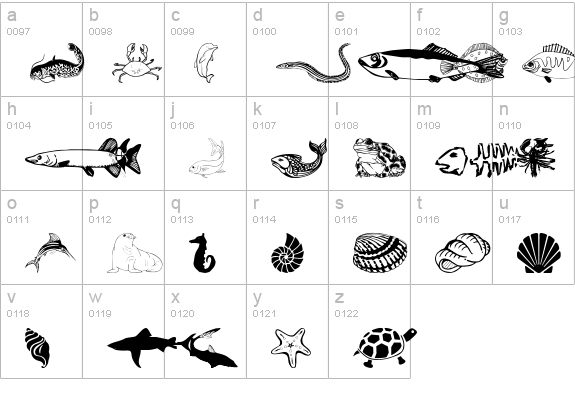
wmaquatic1 Font Details
The wmaquatic1 font is a stunning display typeface that exudes elegance and sophistication. With its sleek lines and unique design, this font is perfect for adding a touch of modernity to any project. Whether you're working on a branding campaign, website design, or any other creative endeavor, wmaquatic1 is sure to make a lasting impression. The best part? wmaquatic1 is completely free to download at FontsMarket.com. So you can access this beautiful font without any cost, making it a fantastic choice for designers, students, and anyone looking to elevate their work with a touch of style and flair. Don't miss out on this incredible opportunity to enhance your projects with the exquisite wmaquatic1 font - download it today and let your creativity soar!